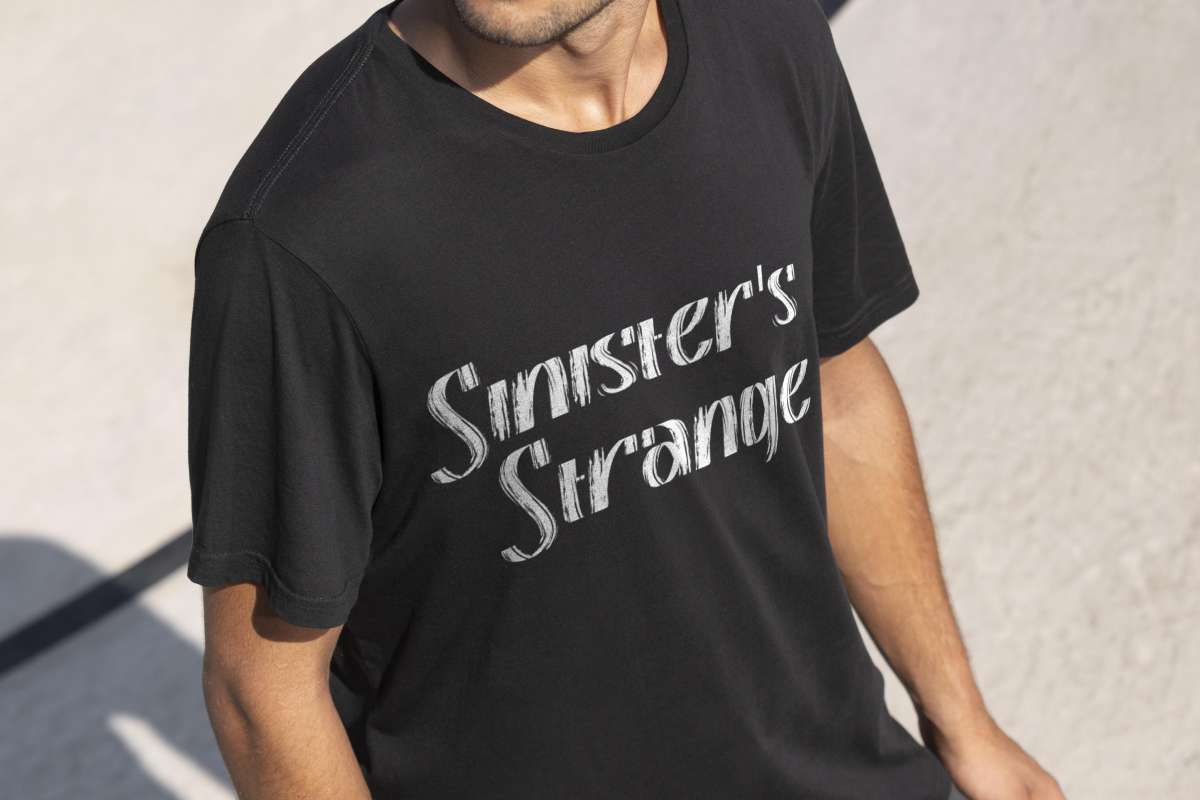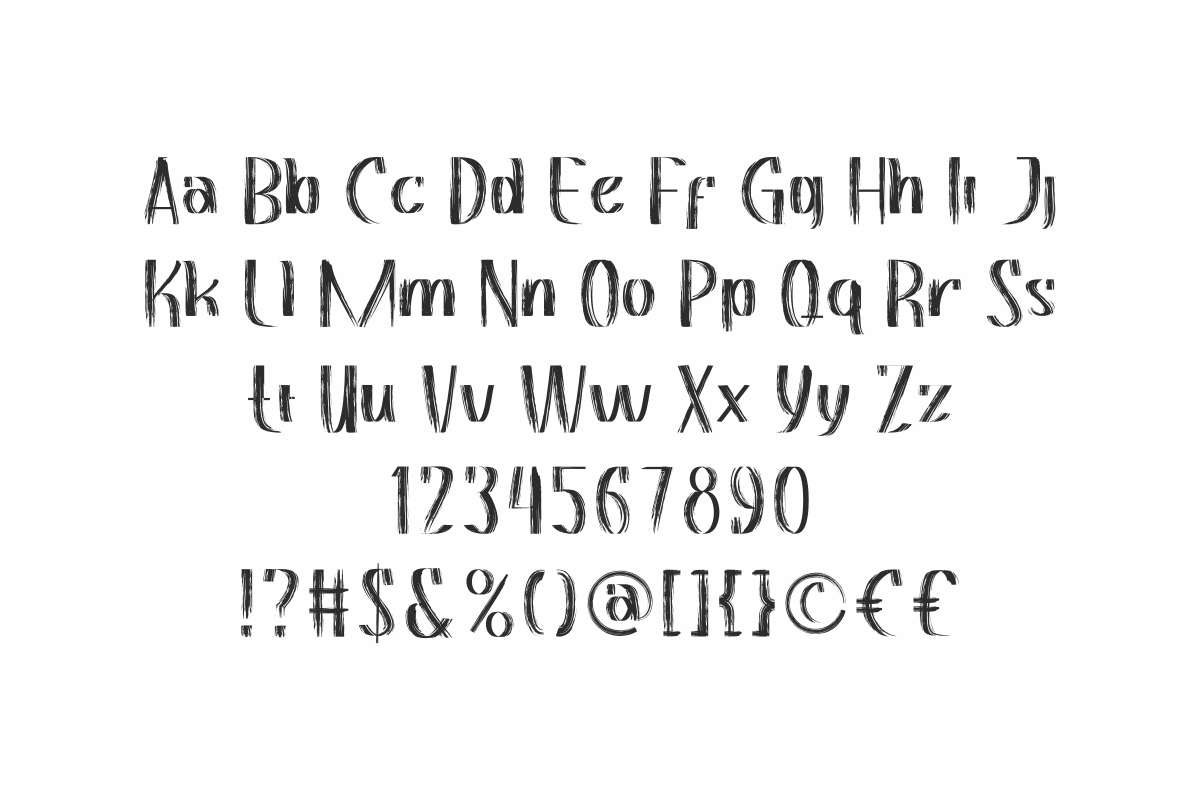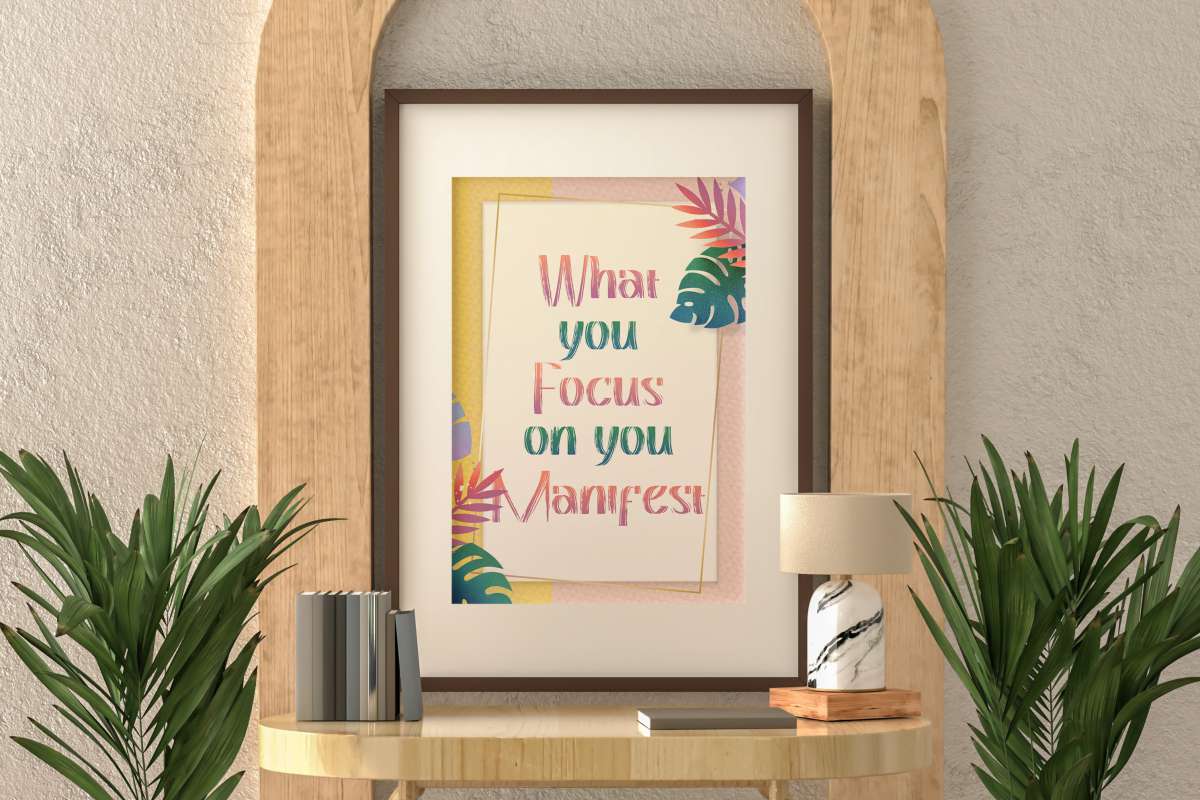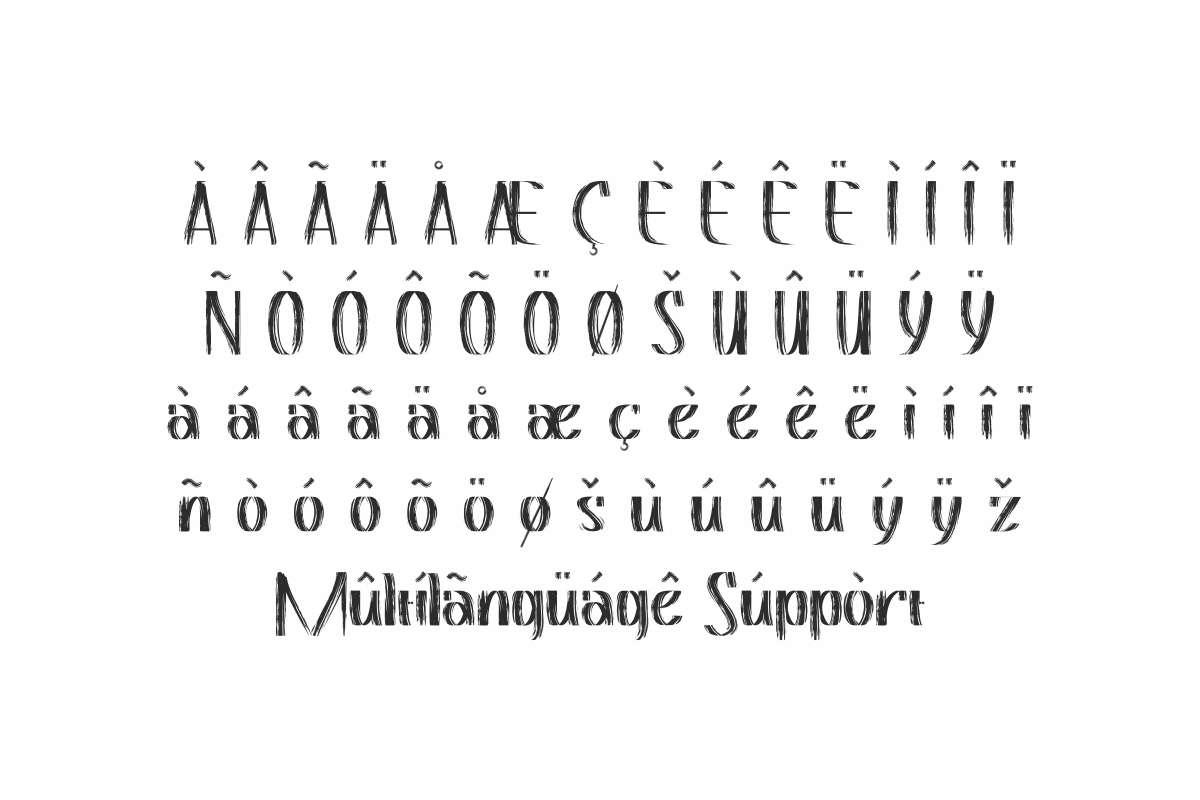
Cozy Rustic Font
Cozy Rustic Display Font
This is an authentic brush with a rough texture created by NihStudio. It will be suitable for many industries such as, agriculture, apparel, café, carpenter, craft, farming, game, honey, movie, publishing, and many more! brush on this font like wood grain!